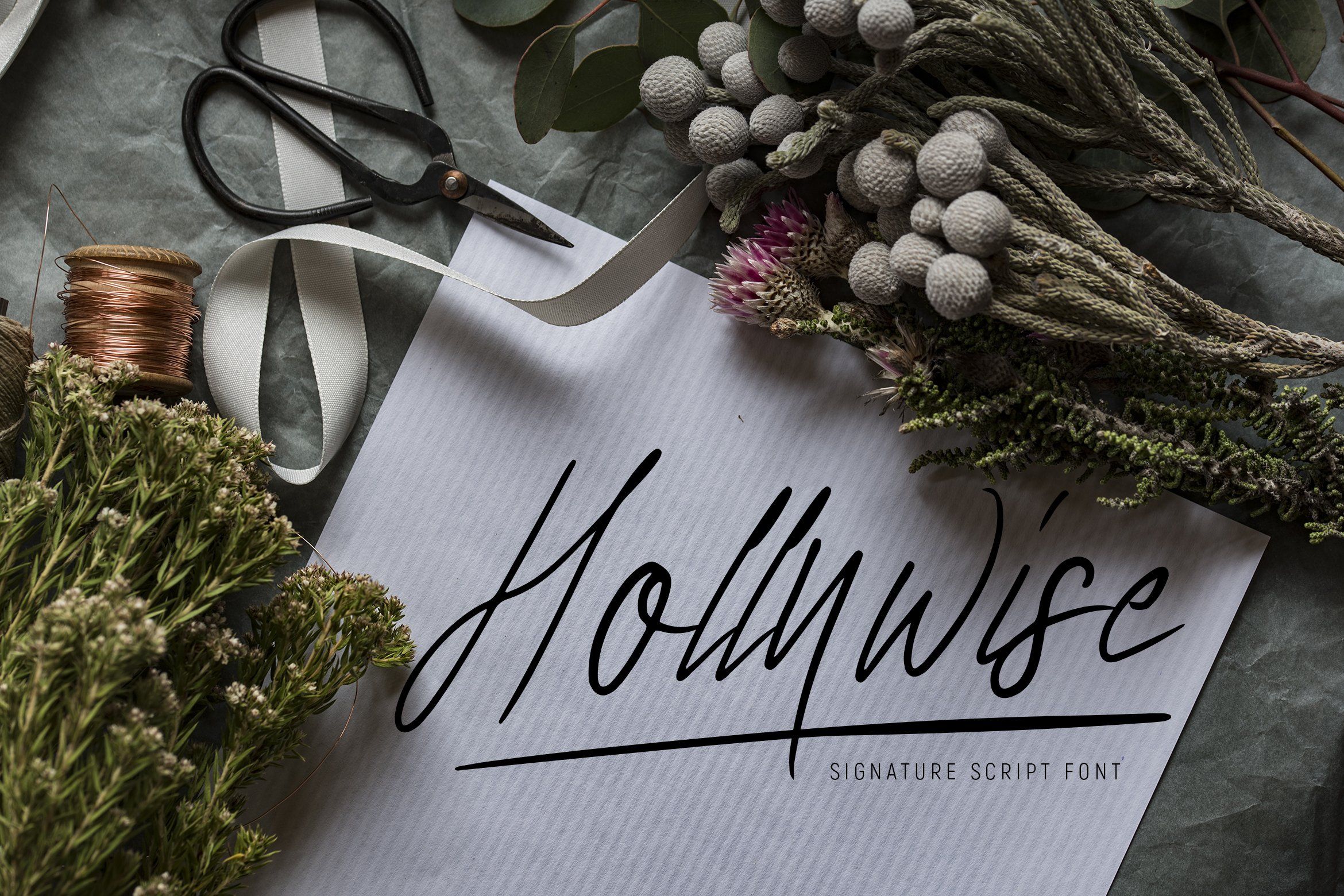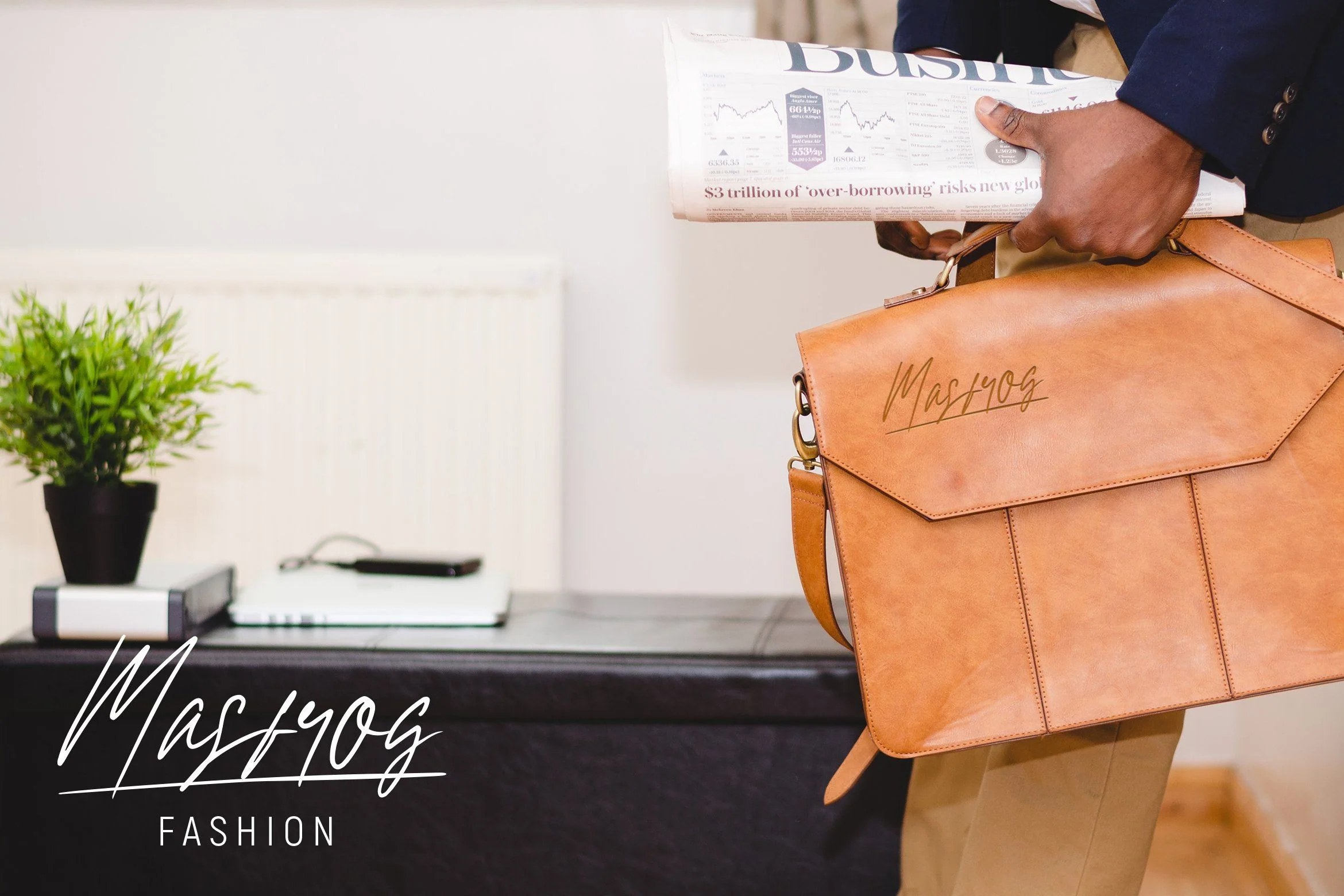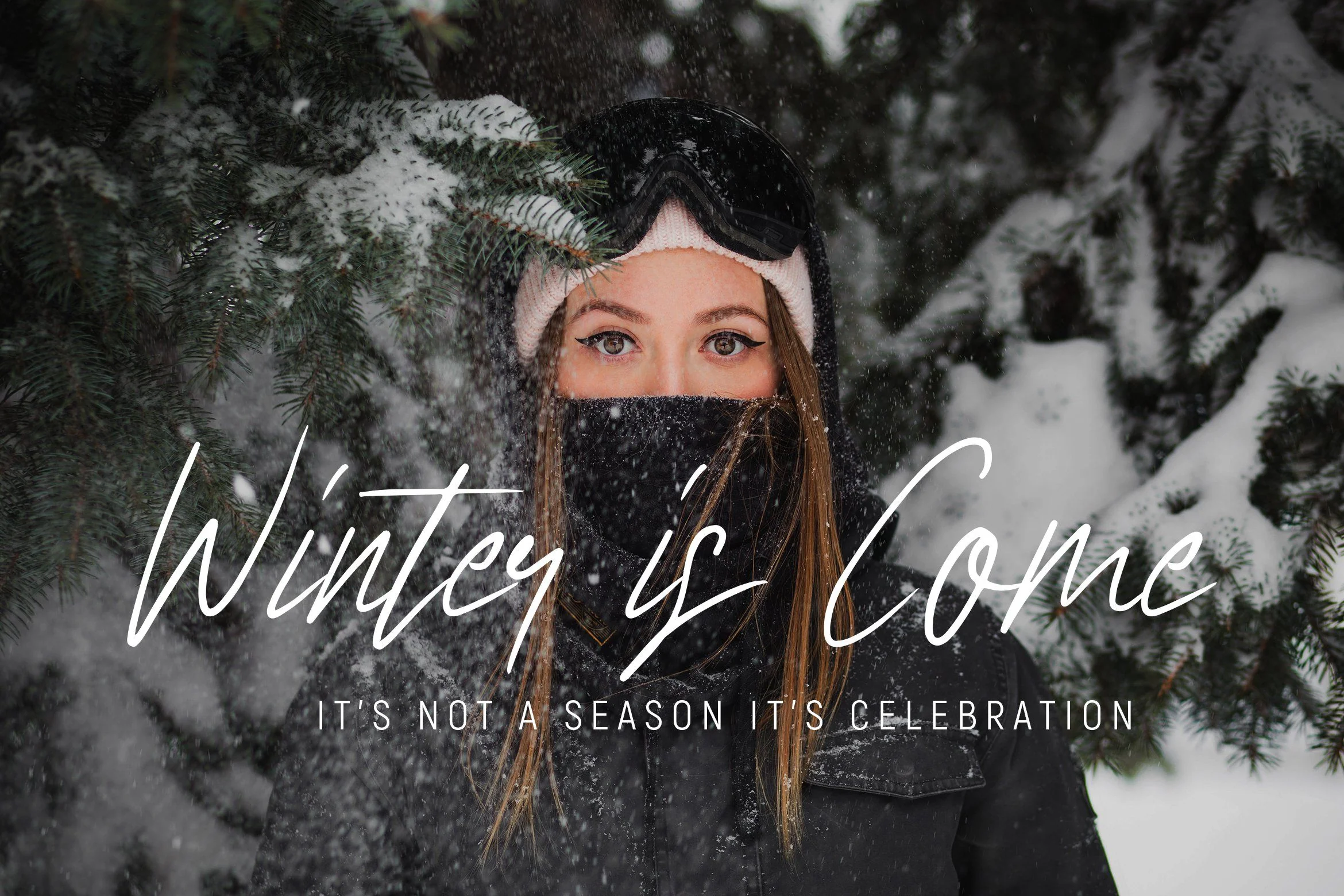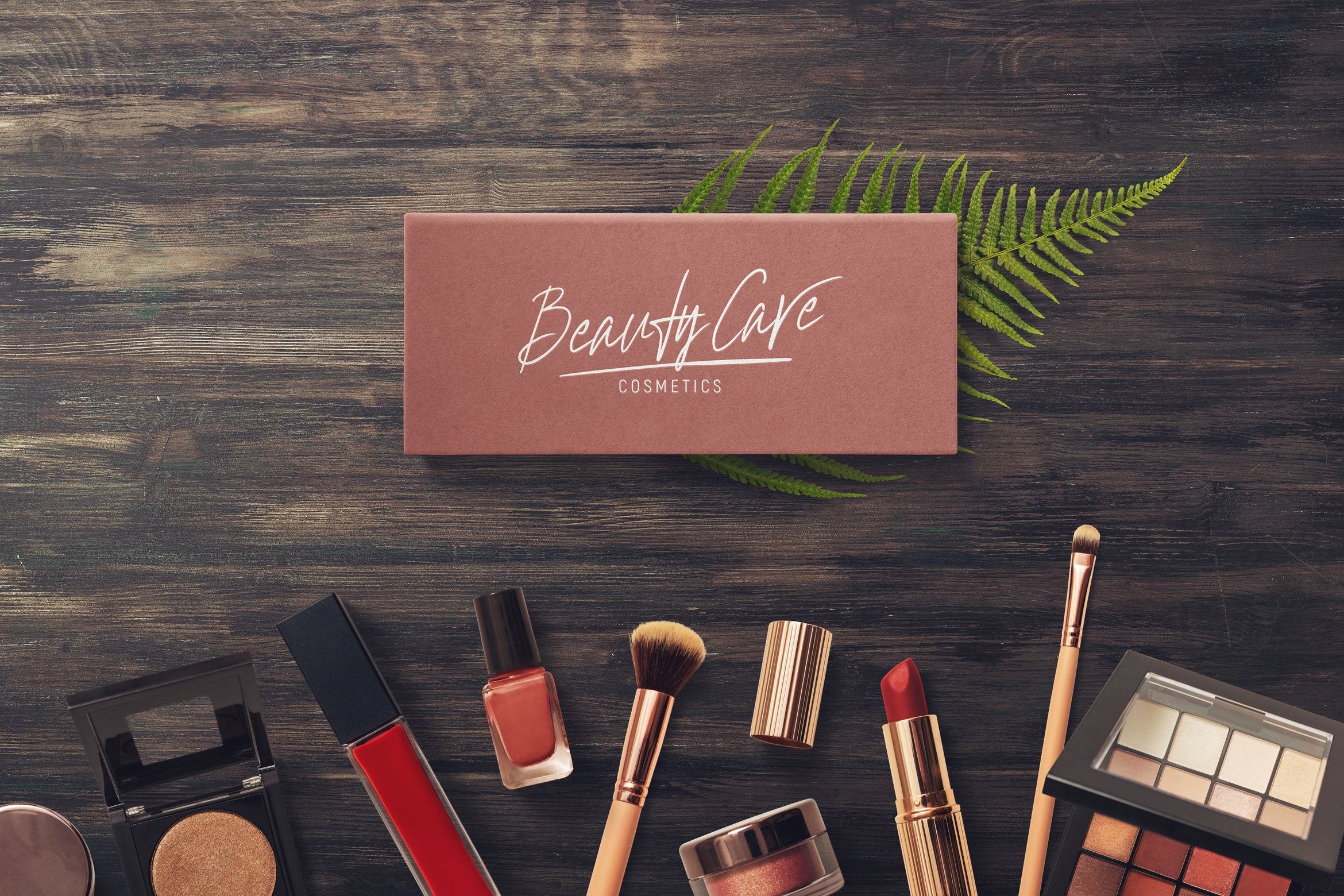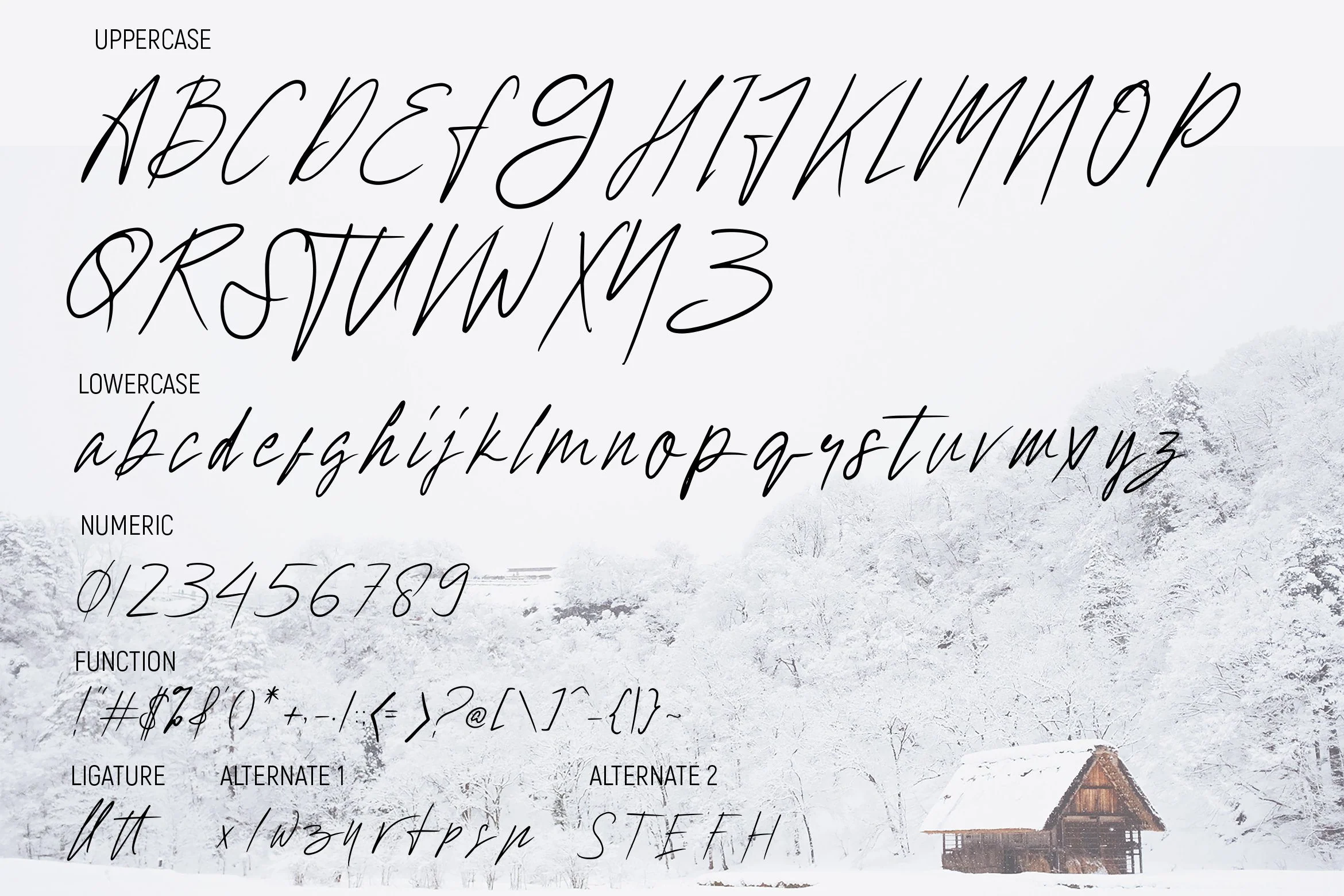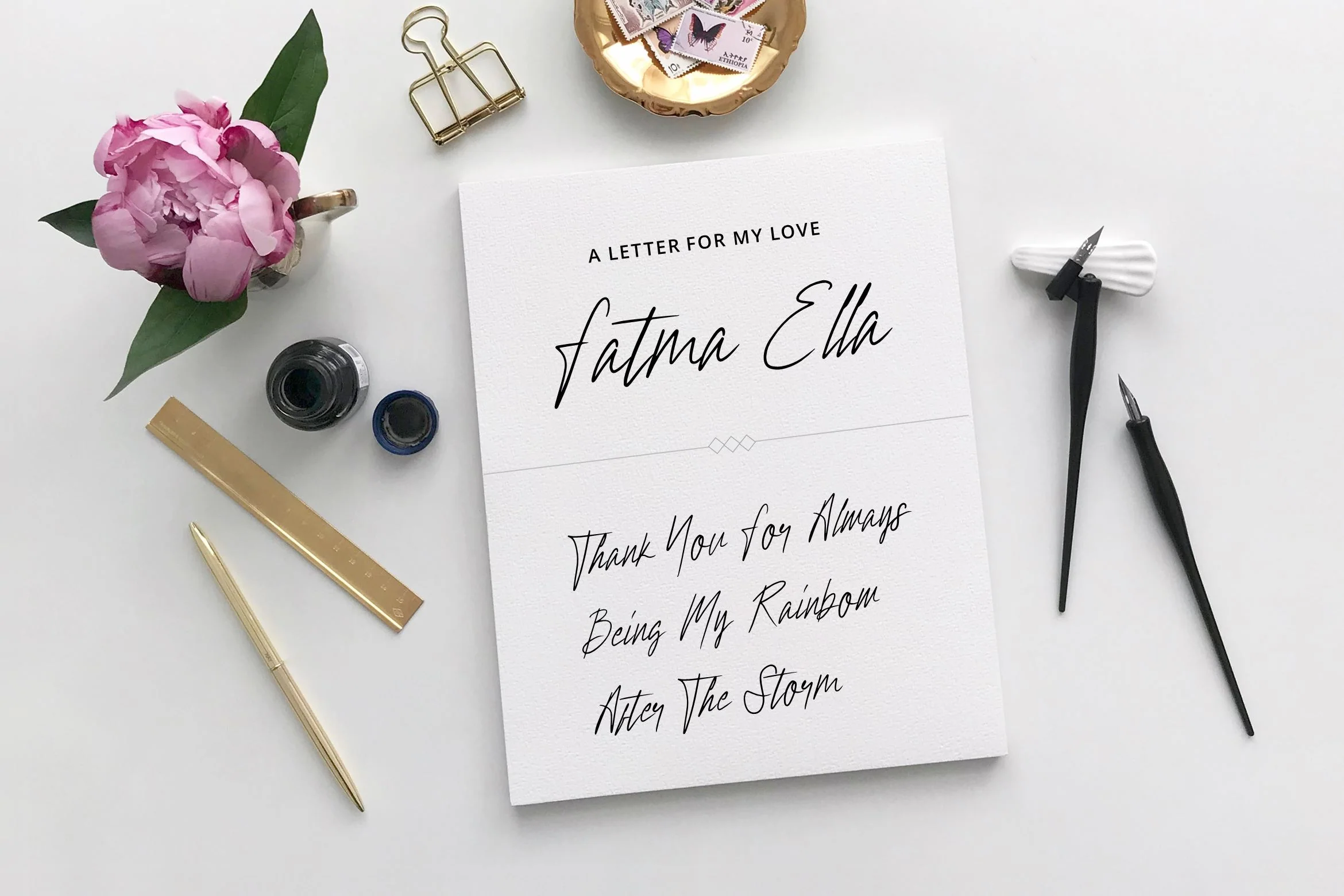
Hollywise - Signature Script Font
Introducing Hollywise - Signature Script Font
This Font can be used for any variety of purposes, such as:
Signature, Photography, Wedding Ceremony, Invitation, Packaging, Logo Type, Branding Design, Fashion and also can be used for Business purpose.
This Font Template contains Modern, Elegant, Creative, Professional and Unique Concept.